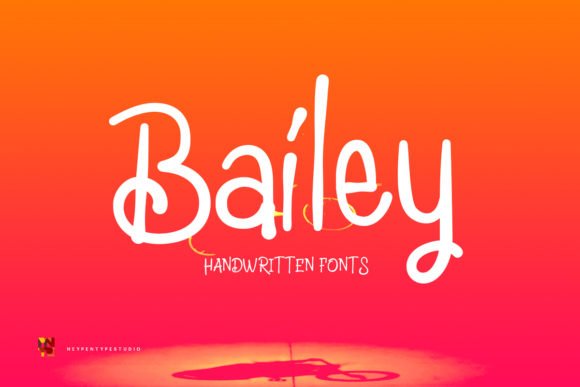
The Perfect Blend of Classic and Modern: Introducing the Bailey Font Have you ever been working on a project and suddenly, the right font pops up, and everything just clicks? That’s exactly what happened to many designers when they first laid eyes on the Bailey Font. This exquisite handwritten font is a true masterpiece, effortlessly…